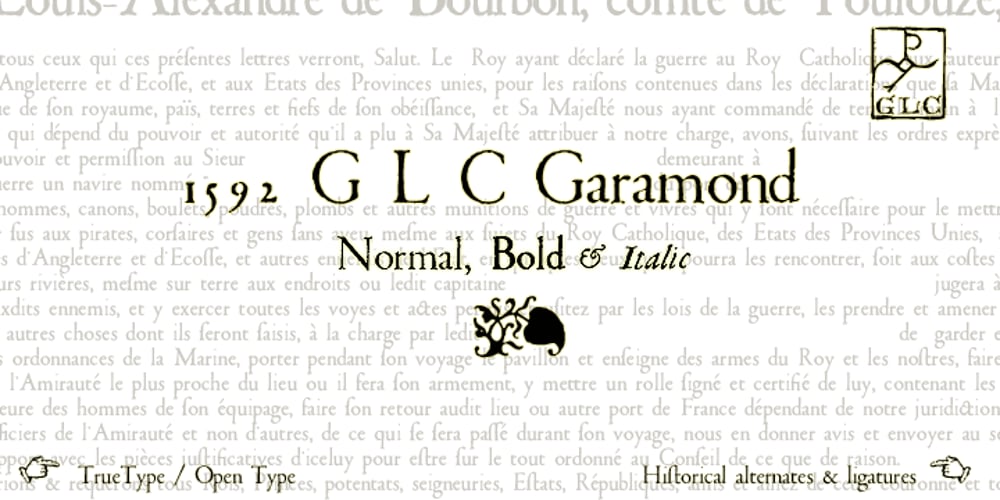
1592 GLC Garamond Font Family was designed by published by GLC. 1592 GLC Garamond contains 3 styles and family package options. This family was inspired by the pure Garamond pattern set of fonts used by Egenolff and Berner, German printers in Frankfurt, at the end of the sixteenth century. All the experts said it was the best and most complete set of the time. The italic style used with it was Granjon’s, as in 1543 Humane Jenson. A few fleurons from the same printers have been added. It can be used variously for web-site titles, posters and flyers design, publishing texts looking like ancient ones, or greeting cards, various sorts of presentations, as a very elegant and legible font… This font supports very large sizes as easily as small sizes, remaining very smart, elegant and fine. Its original cap height is about five millimeters. Decorated letters like 1512 Initials, 1550 Arabesques, 1565 Venetian, 1584 Rinceau from GLC Foundry, can be used with this family without anachronism.